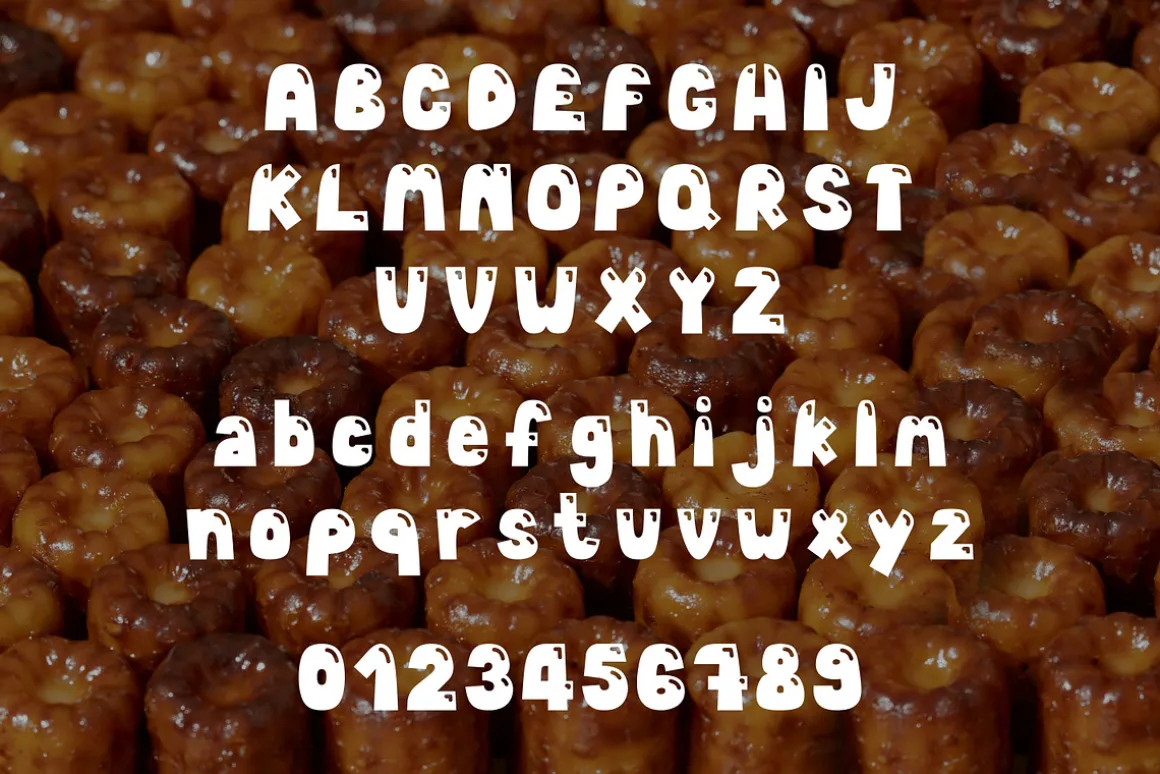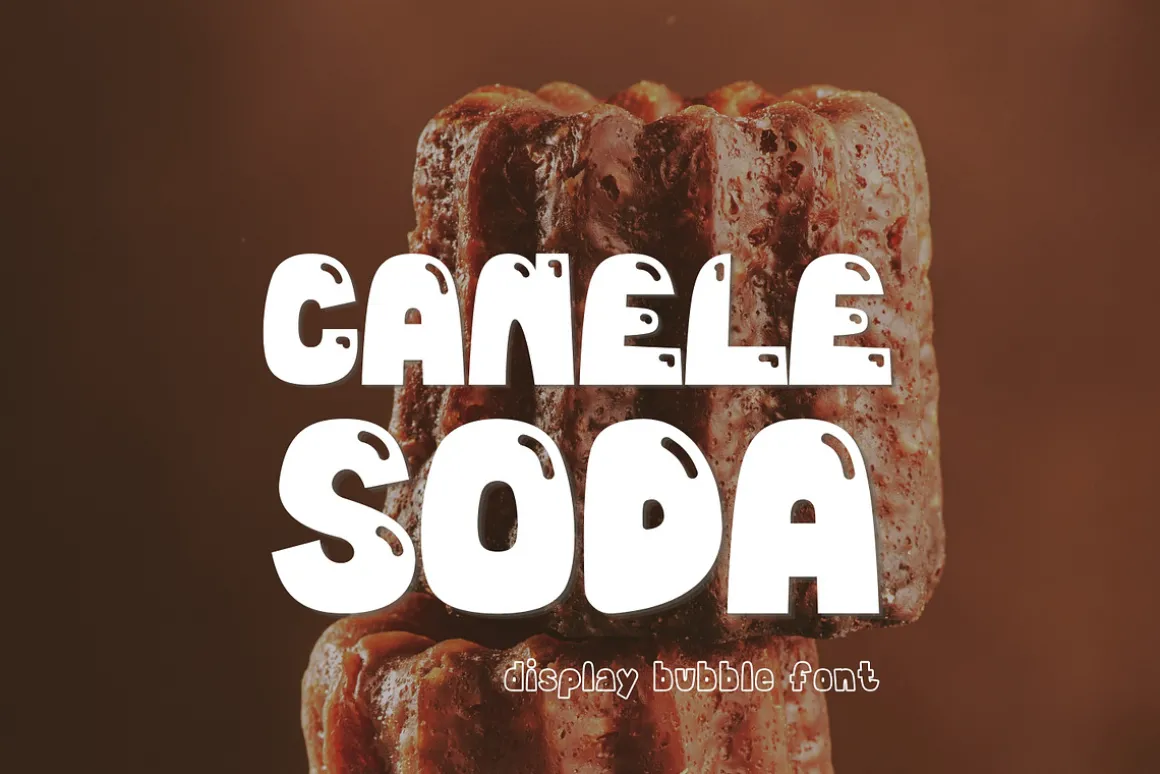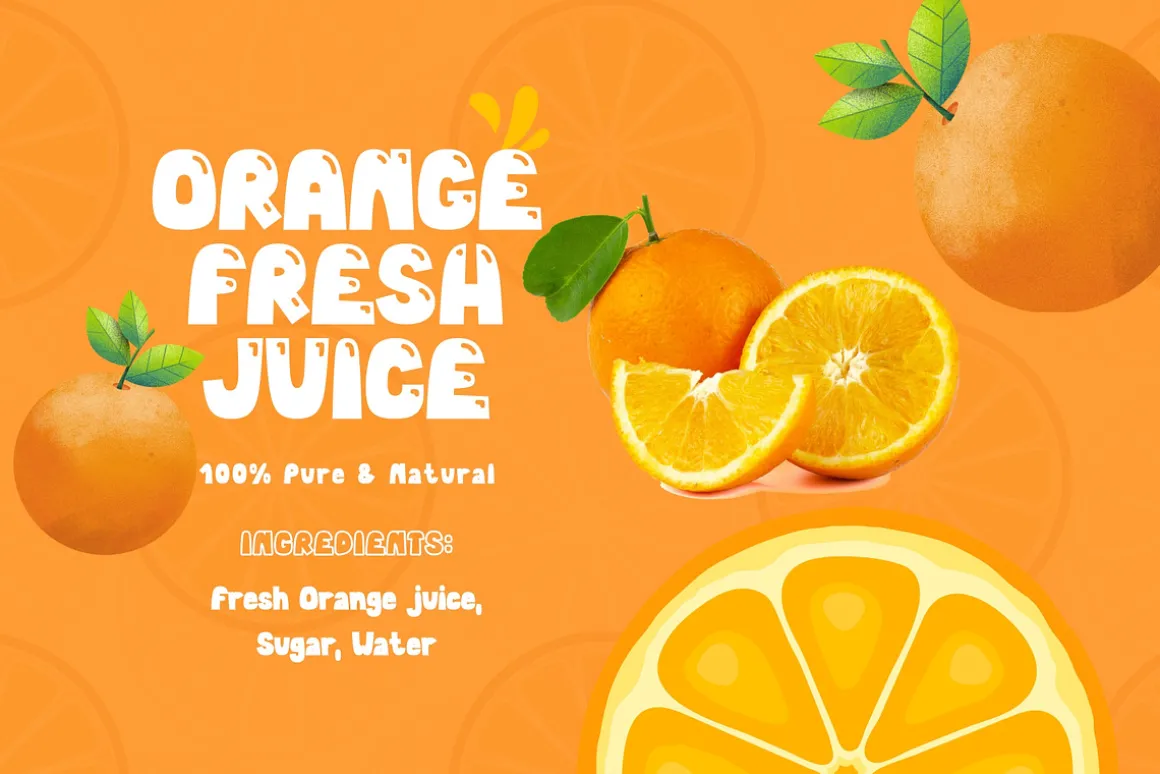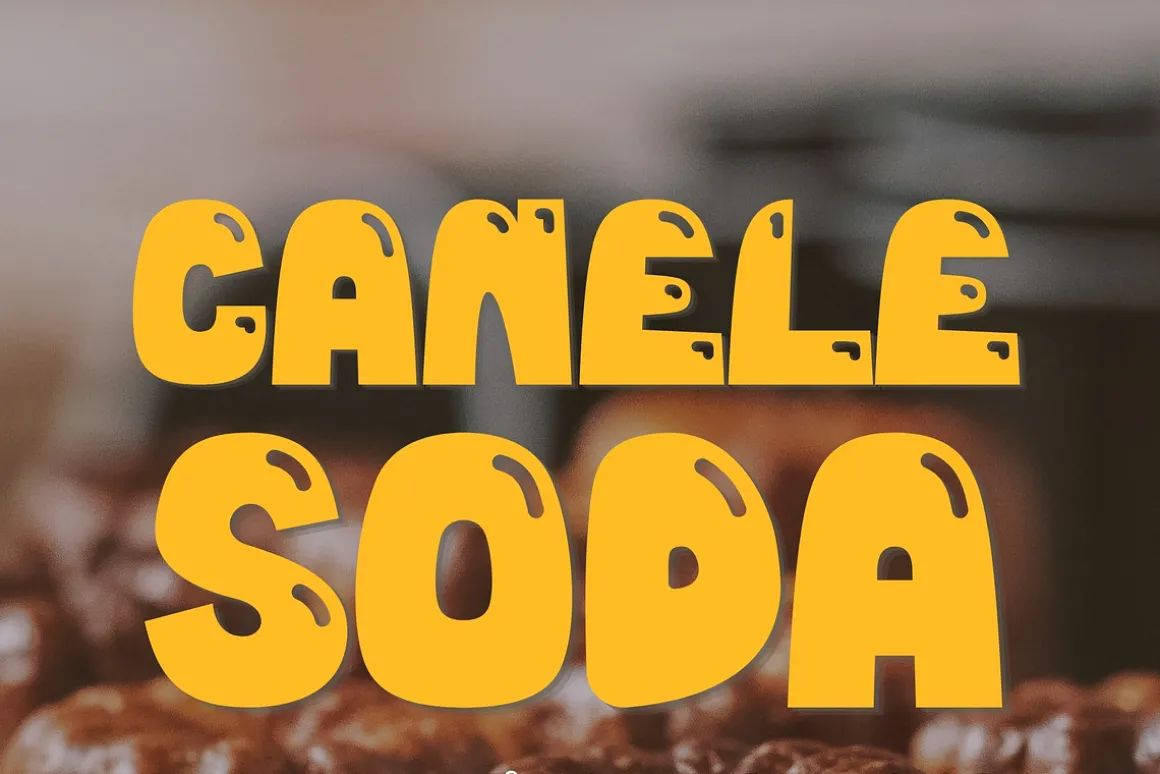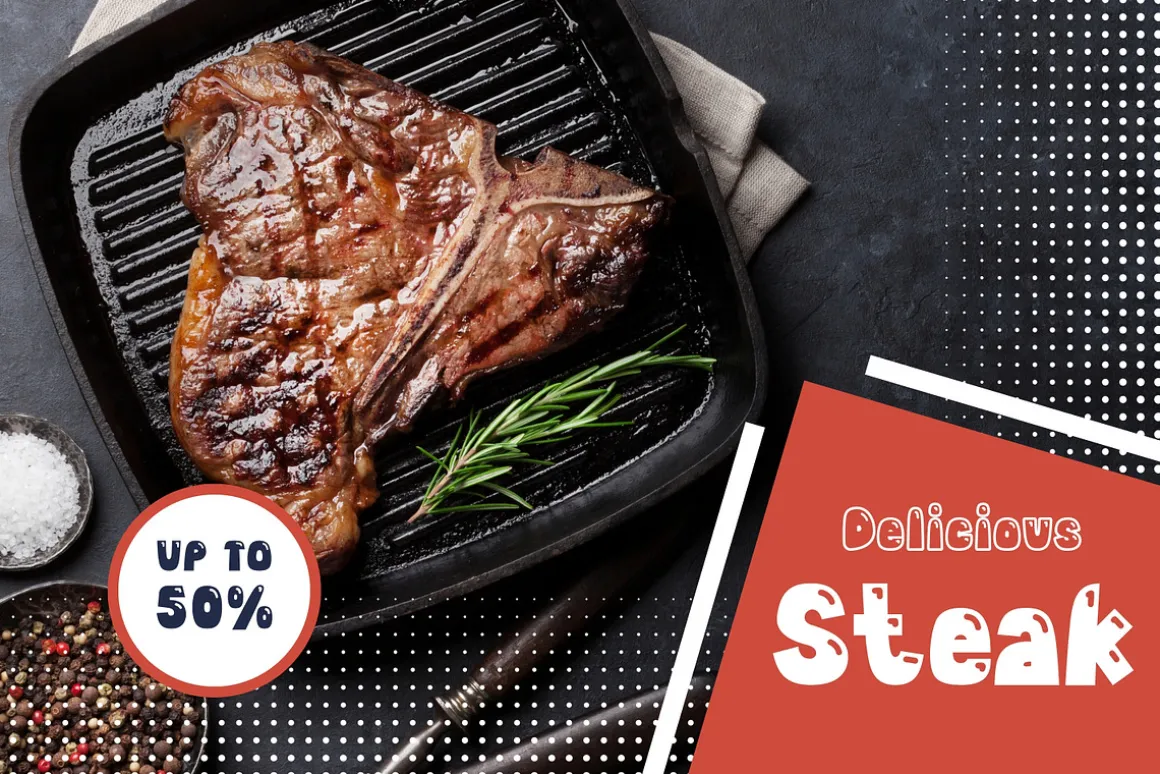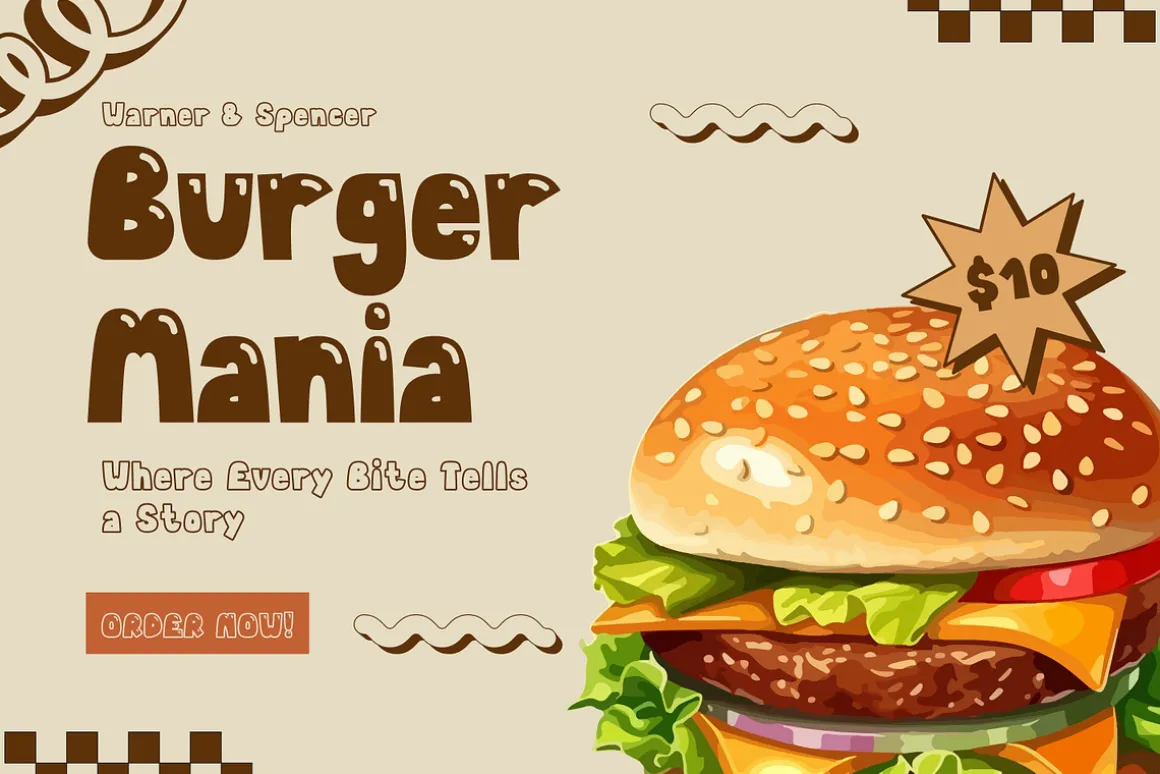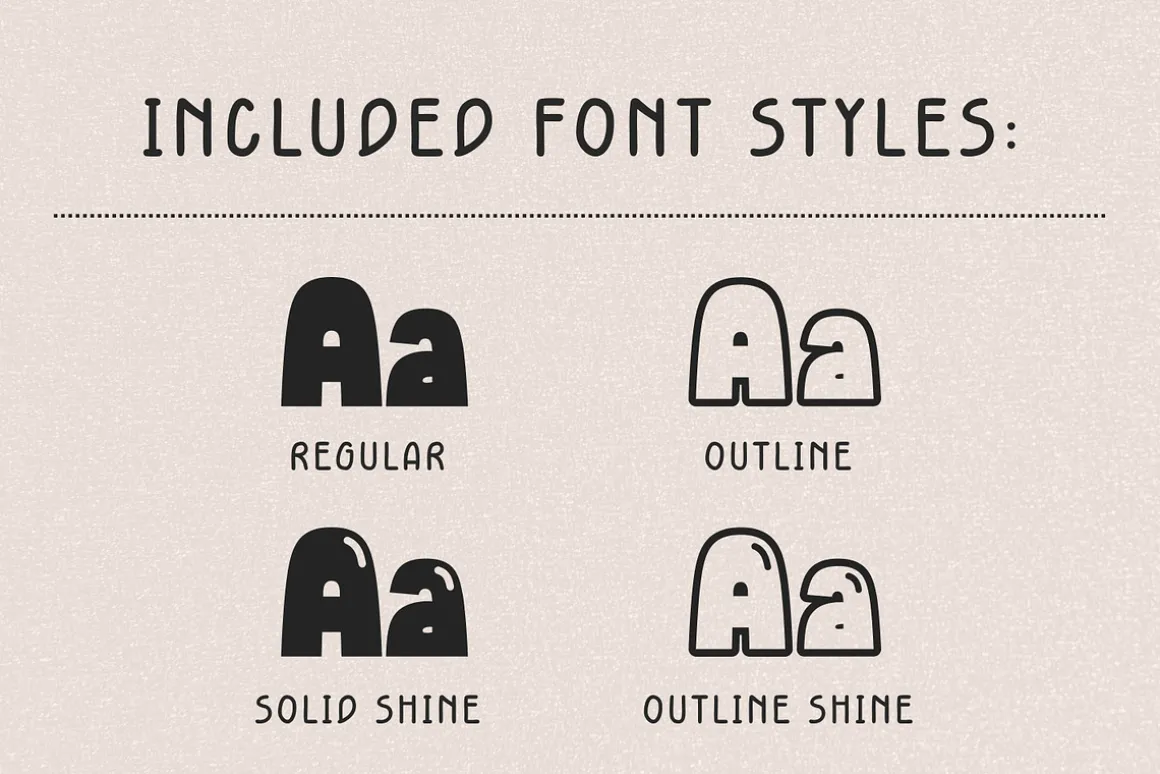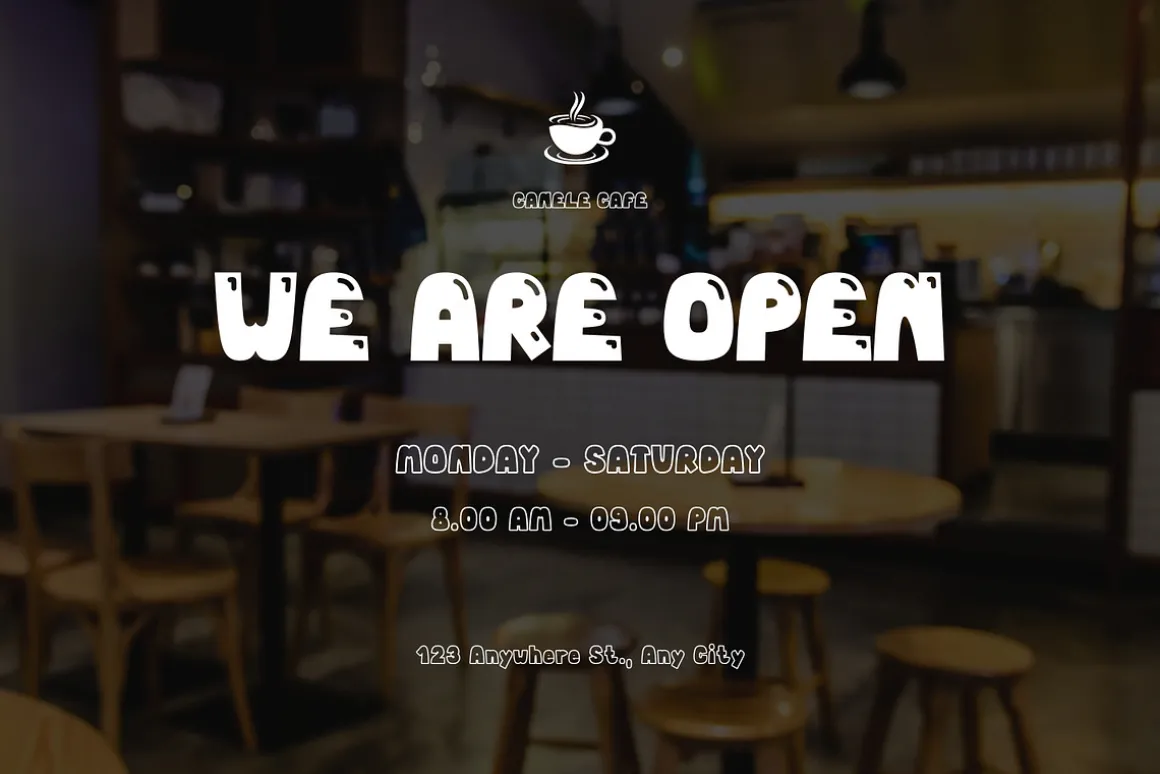
✨ Canele Soda – Fun & Chunky Display Bubble Font
Add a touch of playful sweetness to your designs with CANELE SODA, a bold, chunky display bubble font! Inspired by delicious, glossy pastries and bubbly fun, this font is perfect for eye-catching titles, modern branding, and creative DIY projects.Whether you are designing quirky stickers, playful t-shirts, packaging, or social media graphics, CANELE SODA will give your work an instant pop of personality!